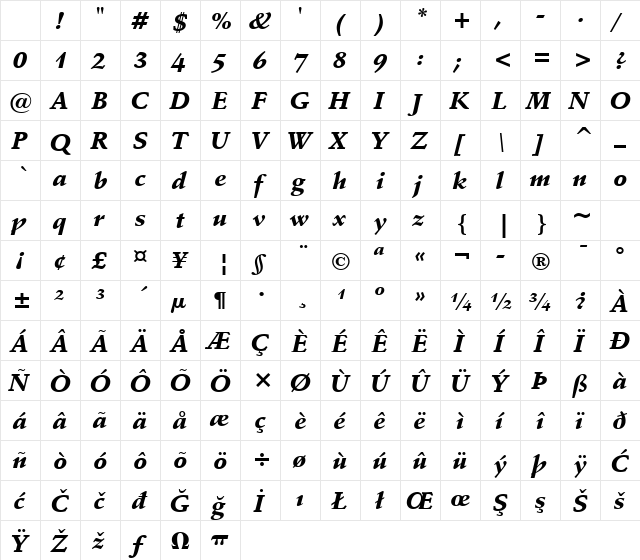
Schneidler Blk BT Black Italic
Schneidler Blk BT Family
Schneidler Blk BT Black Italic
Complete Schneidler Blk BT Black Italic glyph index. Displaying only characters natively supported by Schneidler Blk BT Black Italic font.
Design Context for Schneidler Blk BT
Schneidler Blk BT is a composed and adaptable typeface that performs quietly and consistently across a wide range of design contexts. The slanted form adds forward momentum and visual energy.
Pro Tip: Use Schneidler Blk BT for emphasis, pull quotes, and subheadings where its slanted energy can add rhythm to the layout.